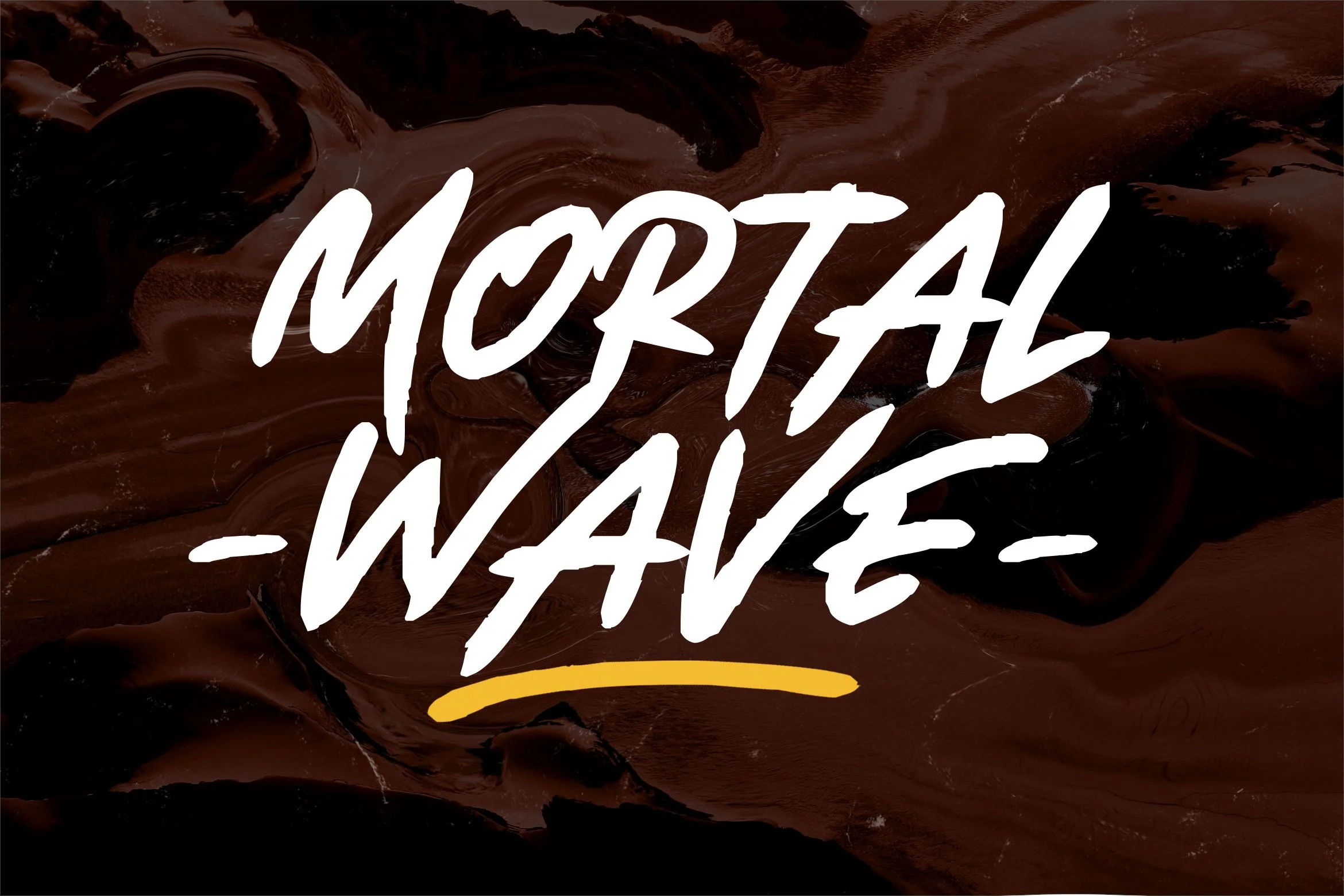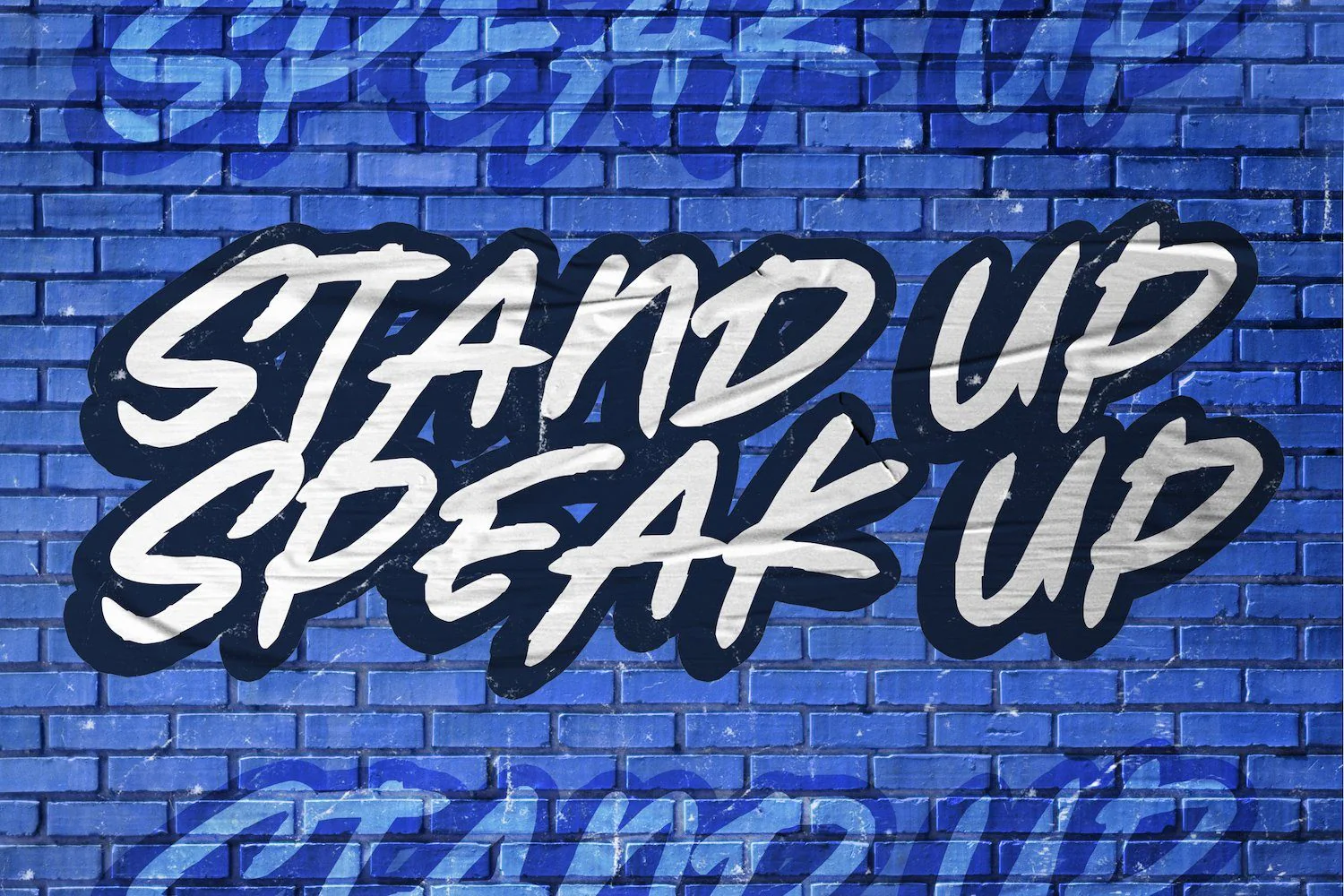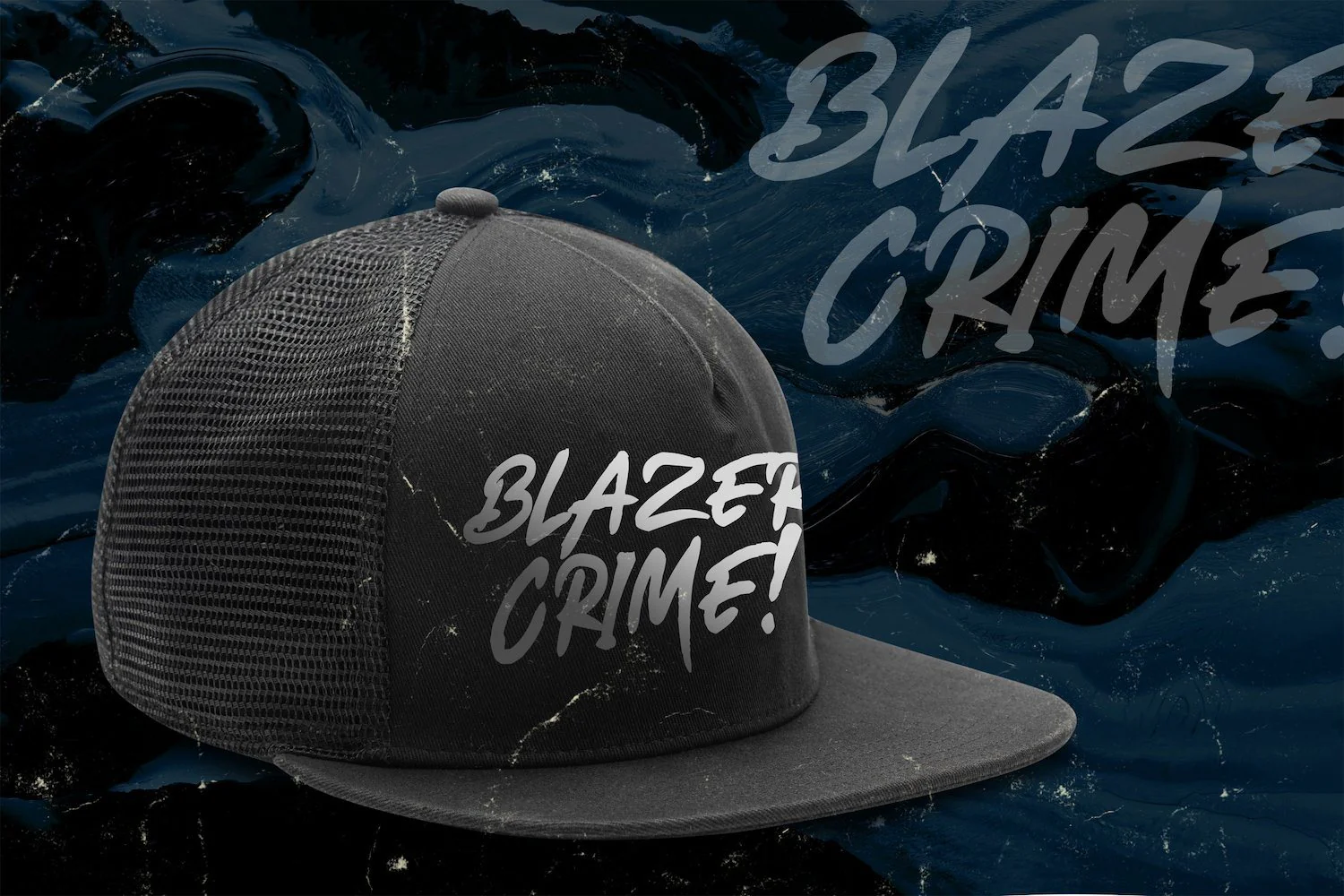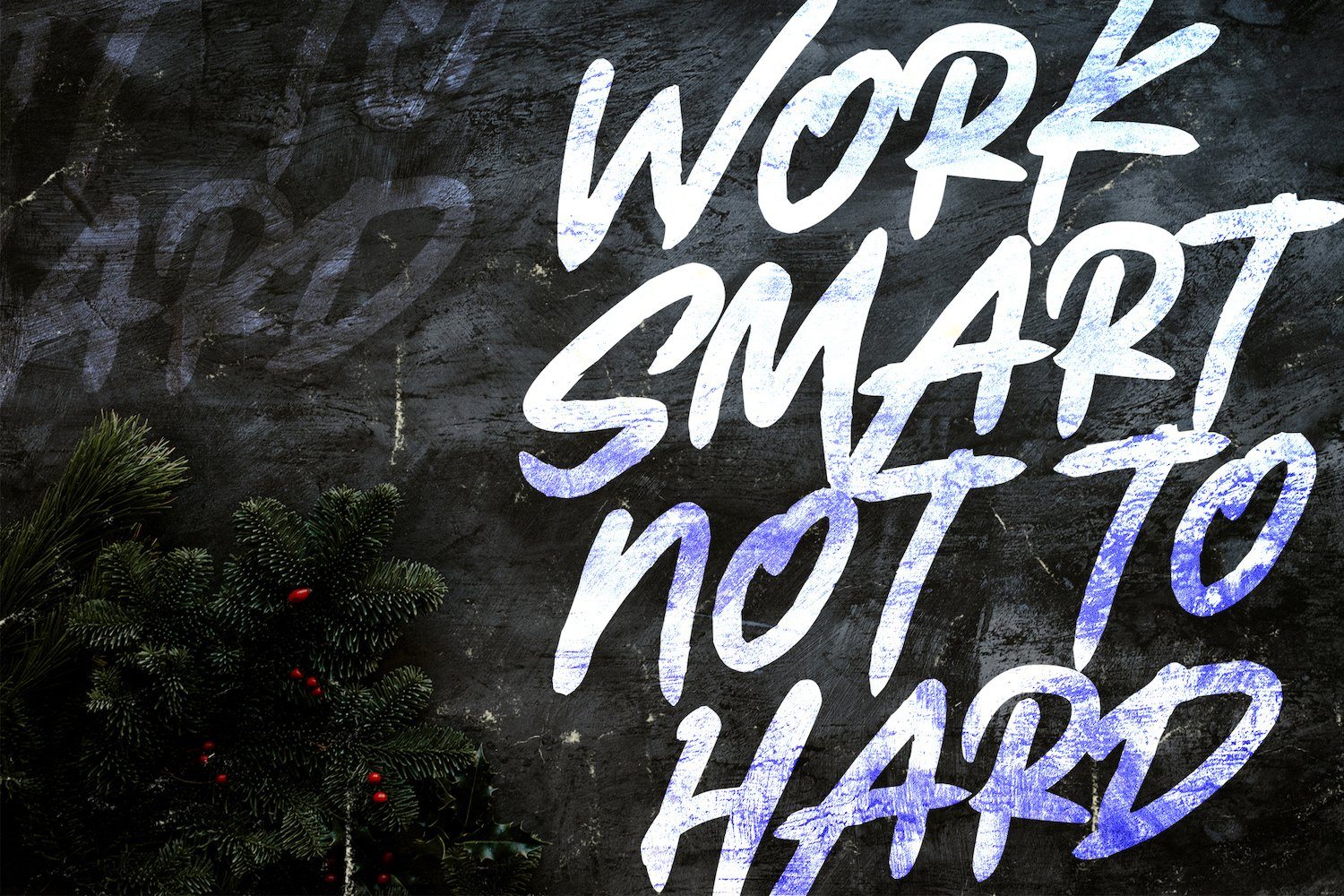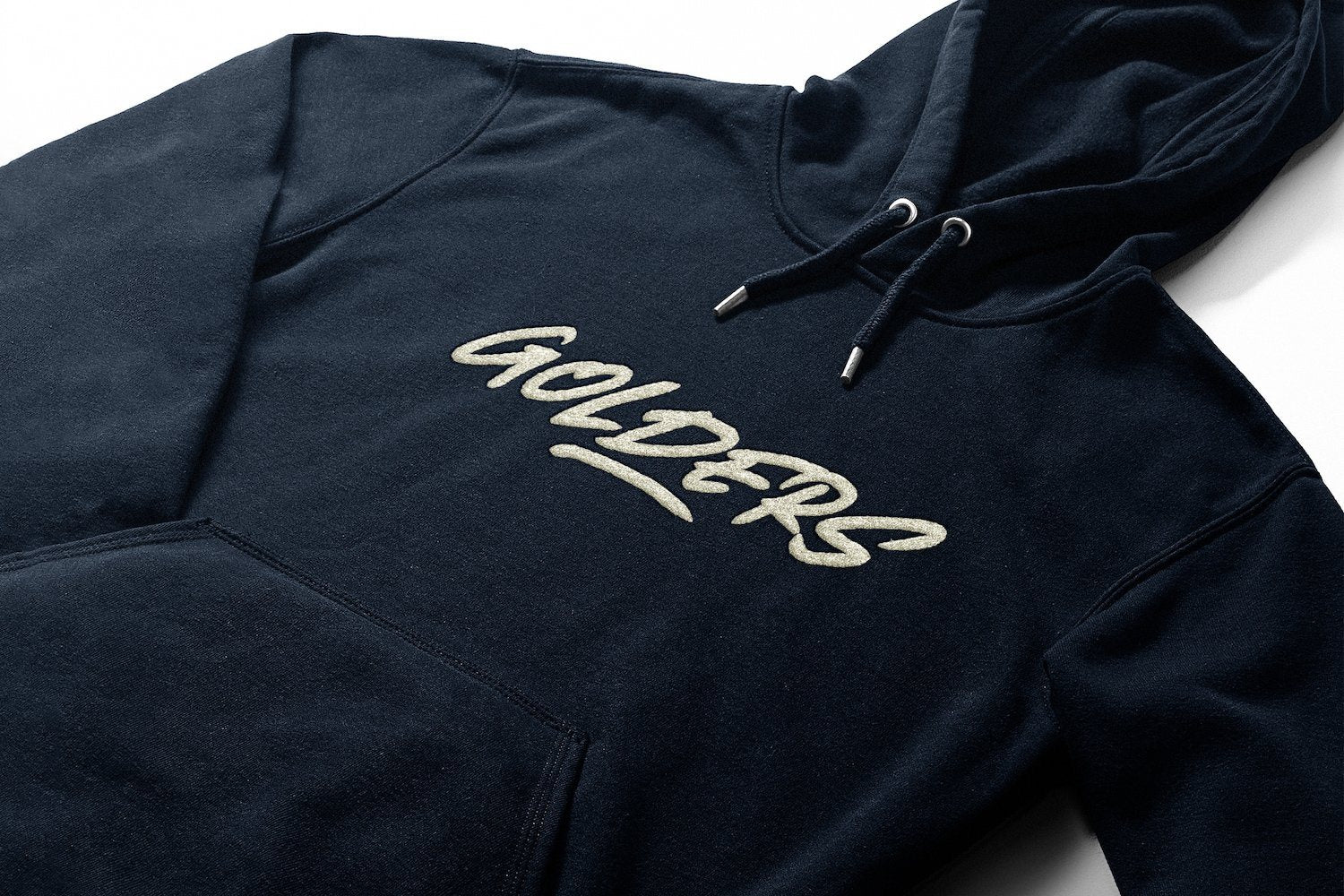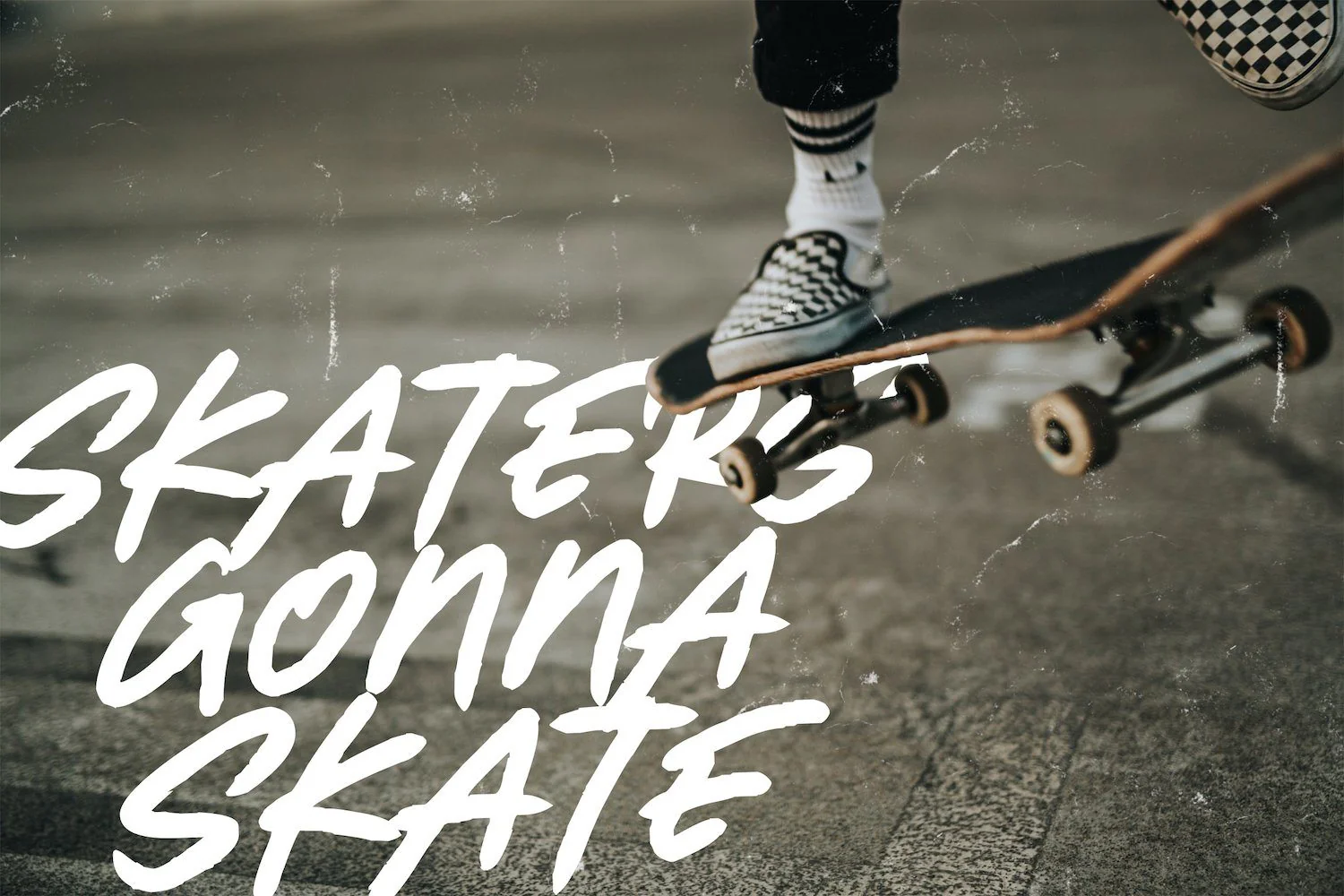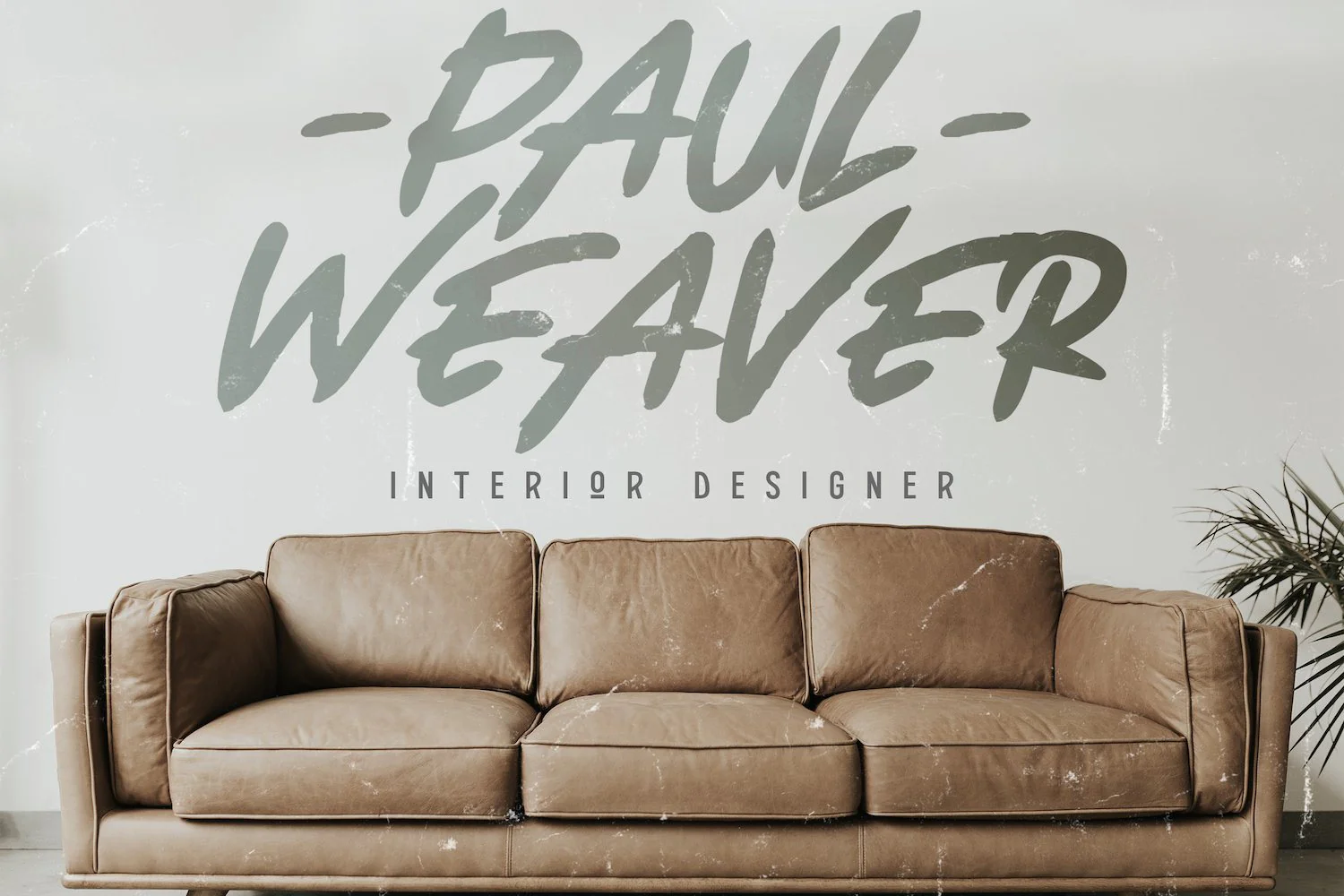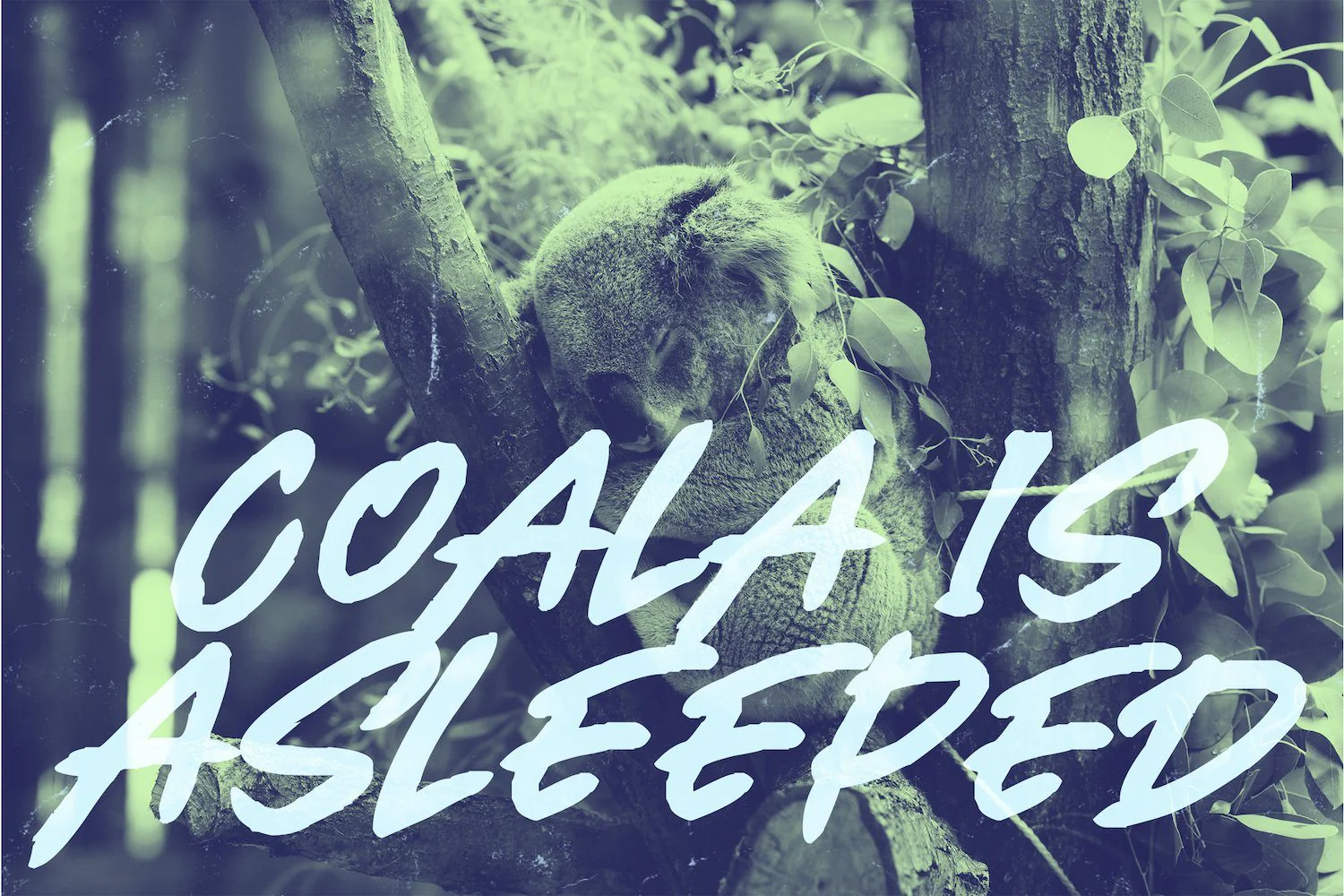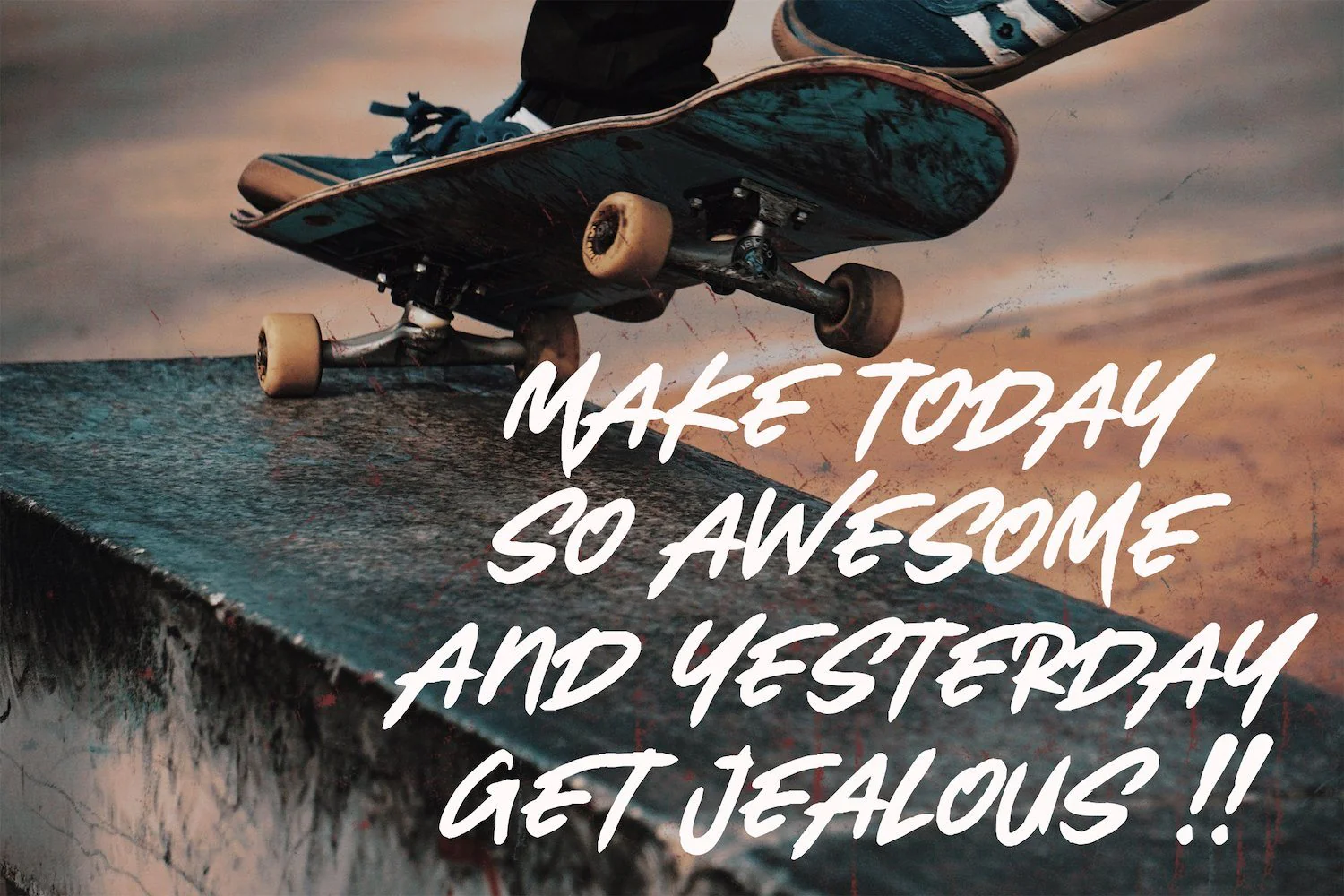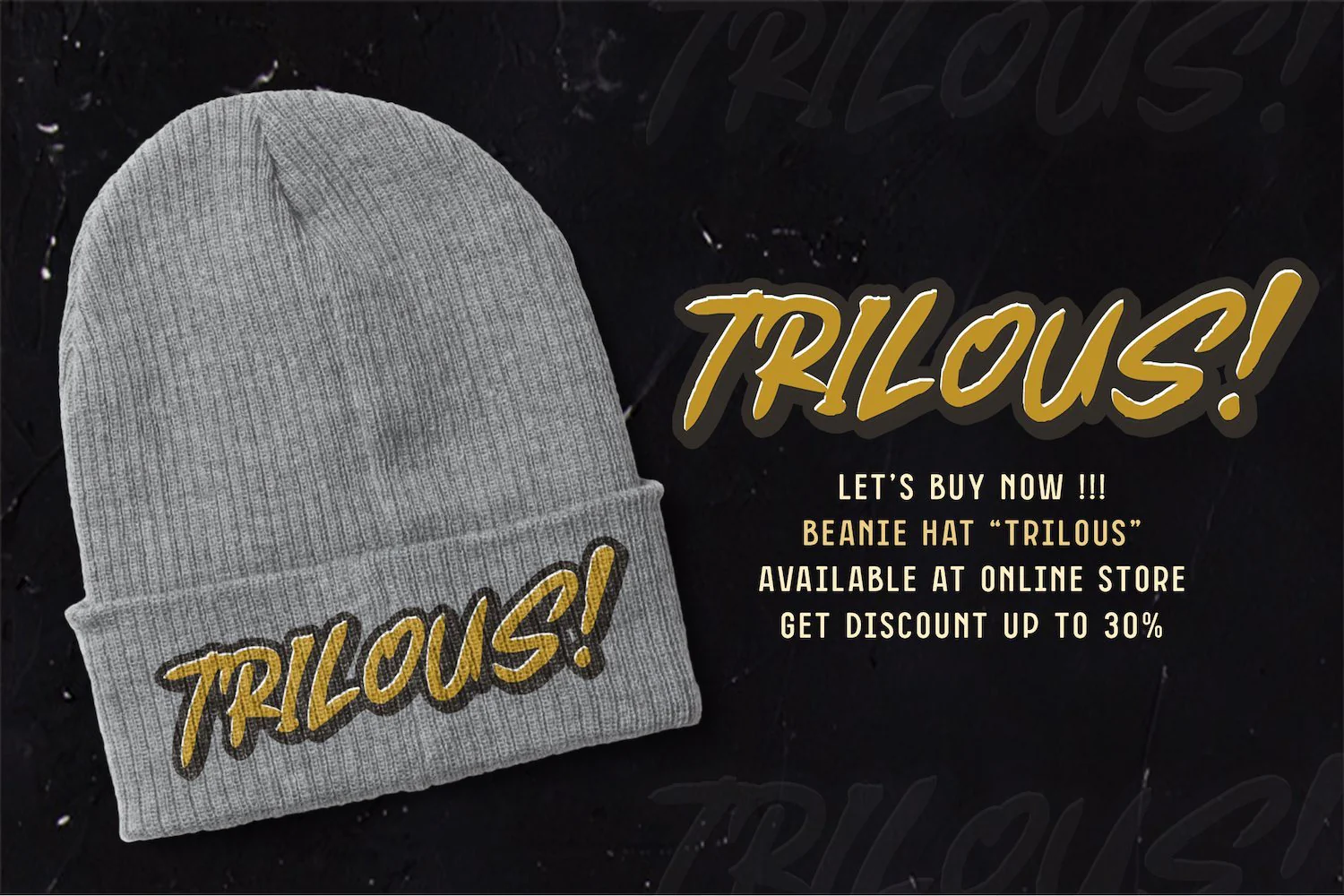
Mortal Wave - Dry Brush Font
Introducing Mortal Wave - Dry Brush Font
Mortal Wave results out of a stunning pairing of a brush pen and pencil that makes it look incredibly endearing and authentic. Use this gorgeous and unique display font to bring any DIY project to life!